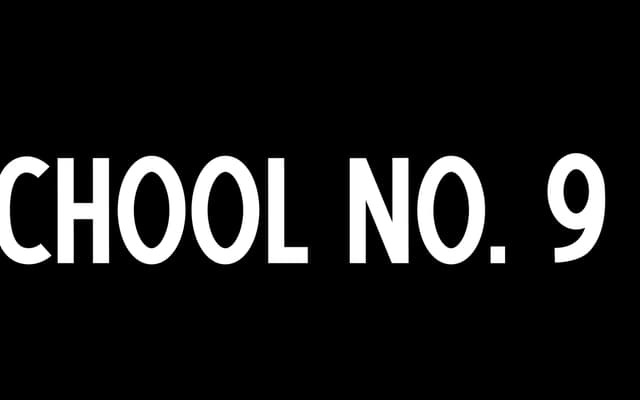
School No. 9
A slim retro display face inspired by a historic Indianapolis schoolhouse associated with the Vonnegut family.
Drawn from the signage and lettering tradition of the old Clemens Vonnegut school in Indianapolis, School No. 9 is a narrow display typeface with a vintage American flavour. The slim proportions give it a distinctly period feel while remaining legible at headline sizes. Suited to retro-leaning branding, editorial headings and ephemera where a touch of Midwestern nostalgia is wanted.
A slim display typeface with retro styling drawn from historical school signage; the narrow proportions and vintage aesthetic place it firmly in the display category.